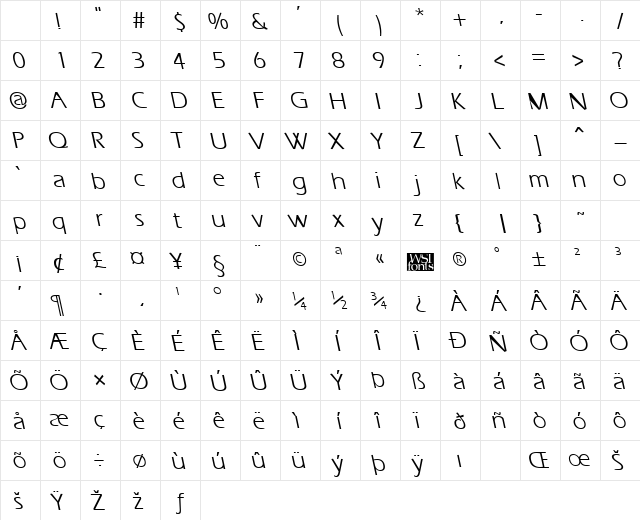
ErgoeBS Regular
ErgoeBS Family
ErgoeBS Regular
ErgoeBS Regular Font Preview
ErgoeBS Regular Uppercase Preview
ErgoeBS Regular Lowercase Preview
ErgoeBS Regular Numeric Preview
ErgoeBS Regular Character Map
Complete ErgoeBS Regular glyph index. Displaying only characters natively supported by ErgoeBS Regular font.
ErgoeBS Regular Character Map
Design Context for ErgoeBS
ErgoeBS is a composed and adaptable typeface that performs quietly and consistently across a wide range of design contexts.